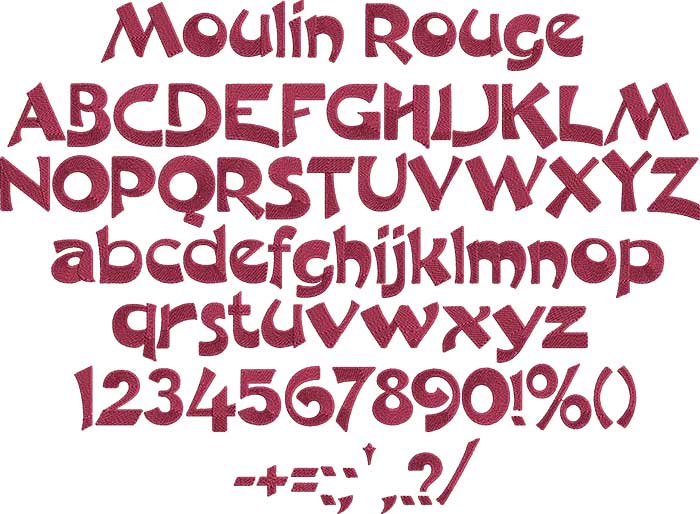
BX Embroidery Font: Moulin Rouge
BX Embroidery Font: Moulin Rouge is an art nouveau, funky sans serif machine embroidery font that includes A-Z, a-z, 0-9 and punctuation. (77 total characters). 4 sizes.
BX Embroidery Font: Moulin Rouge is an art nouveau, funky sans serif machine embroidery font that includes A-Z, a-z, 0-9 and the following punctuation: !%()-+=:;”‘?/,. (77 total characters).